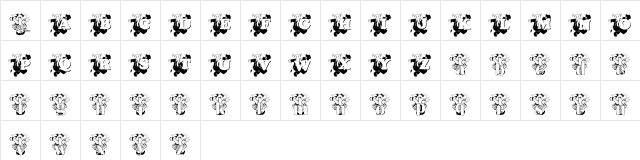
ELEFUN_KG Regular
Design Context for ELEFUN_KG Typeface
ELEFUN_KG has an approachable, lighthearted character — its loose, expressive forms are well-suited to children's content, casual branding, and fun-first design.
Font Pairing: Pairs well with a rounded or humanist sans for body copy, maintaining the friendly tone without relying on ELEFUN_KG to carry extended reading.
Pro Tip: Avoid using ELEFUN_KG for long passages of text — it works best for headlines, labels, and short calls to action.